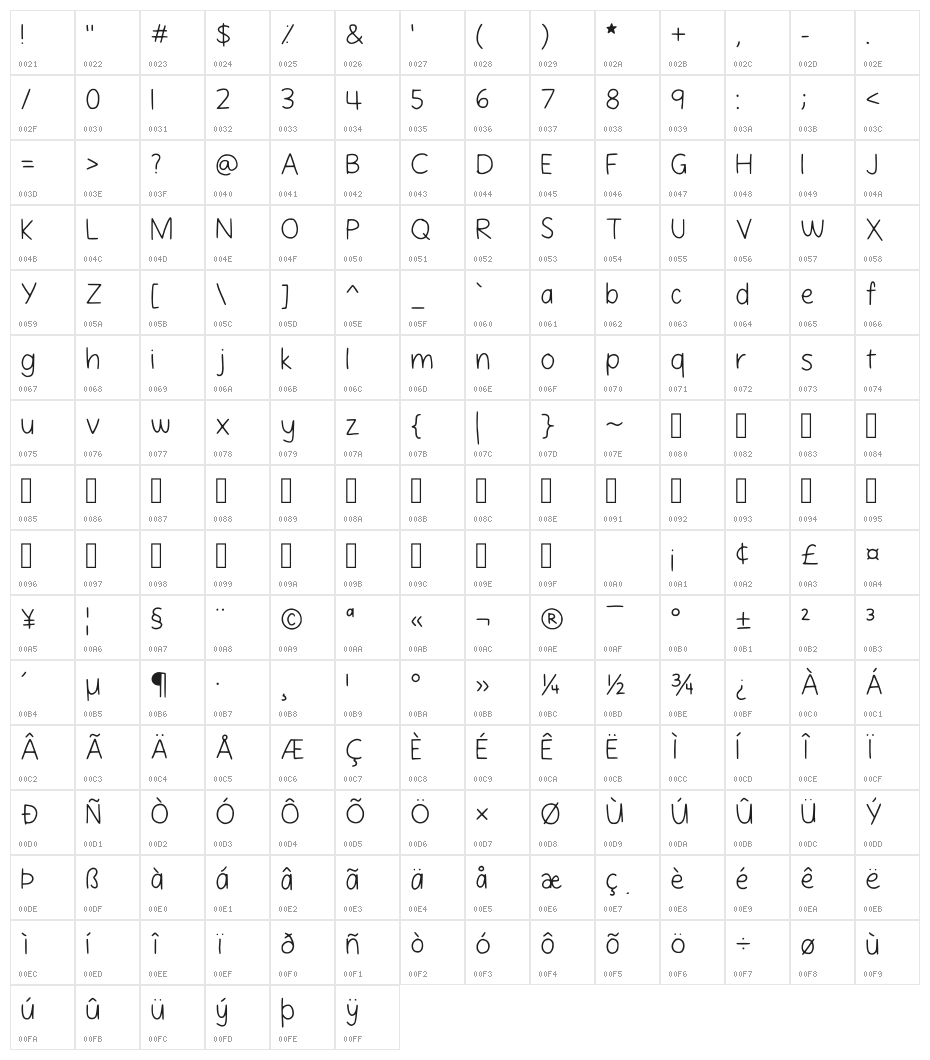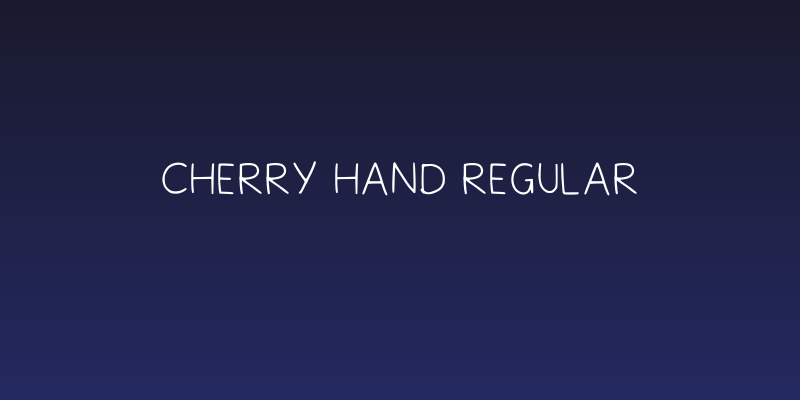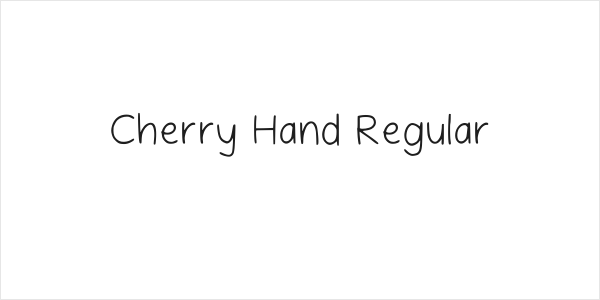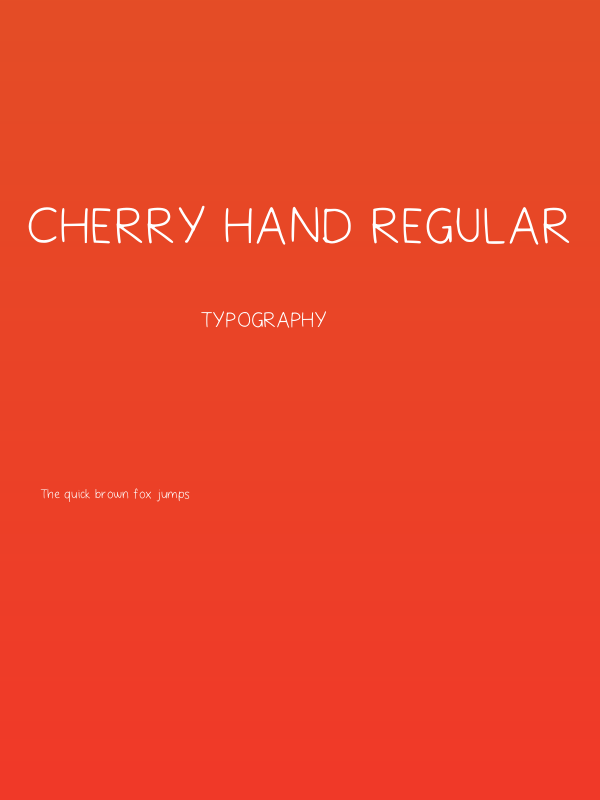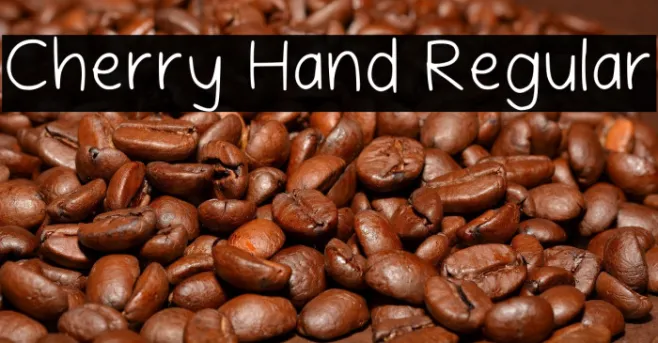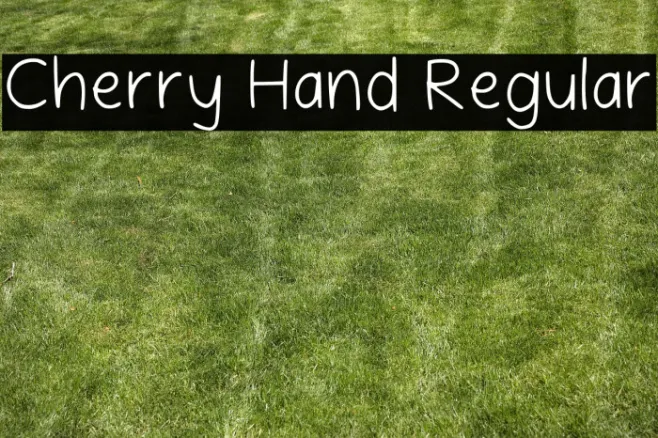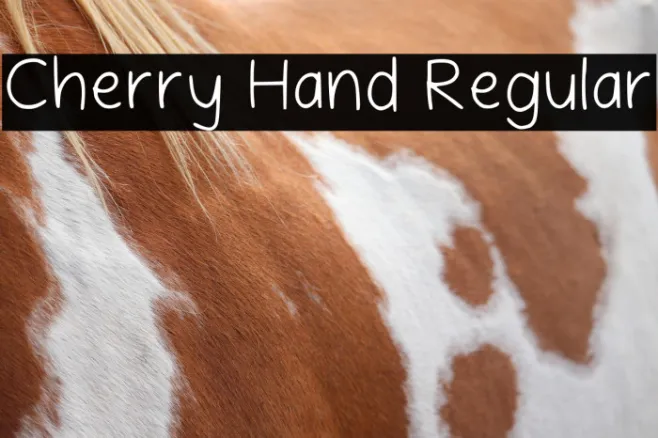
Cherry Hand Regular Font
Cherry Hand Regular Description
A playful, handwritten font with a casual and friendly appearance. The characters are slightly irregular, adding a personal touch.
| Overall Style | Casual, Friendly |
| Use Case | Informal text, Personal notes |
| Proposed Projects | Greeting cards, children's books, informal invitations. |